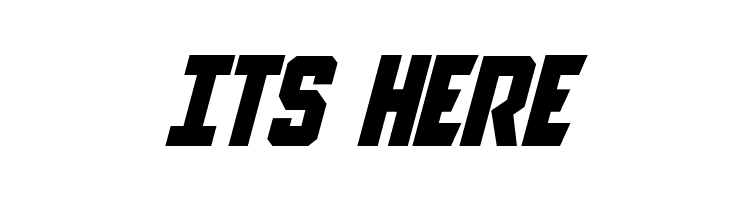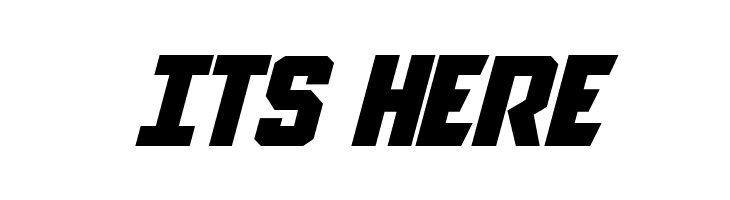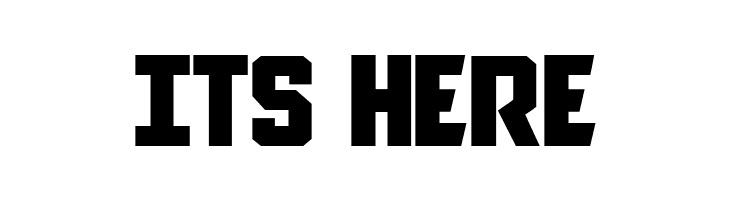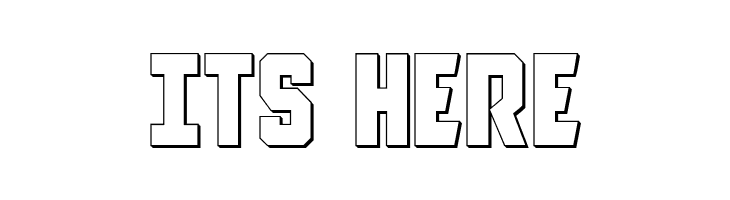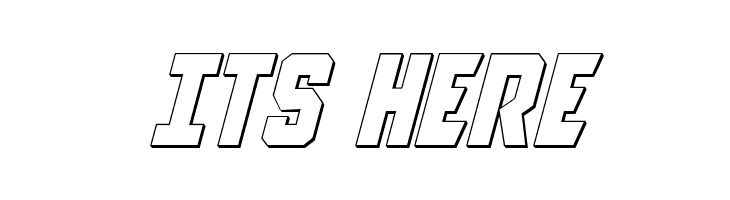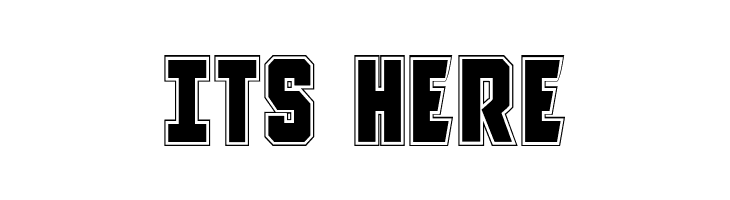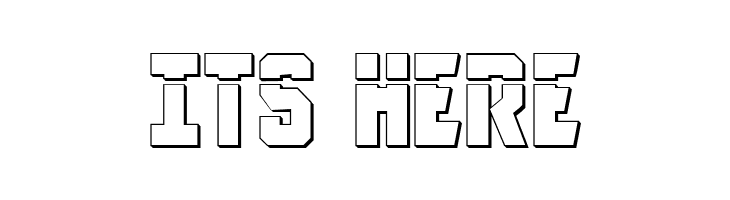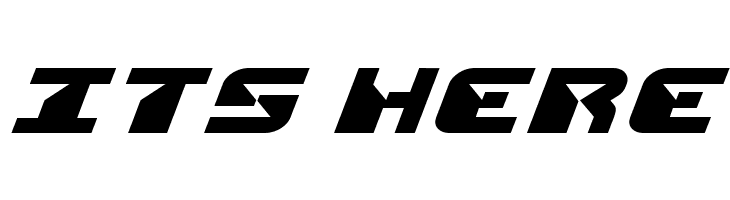
Chocolate Donuts Font
- Font: Chocolate Donuts
A bold, italic font with a dynamic and angular design, perfect for impactful visuals.
A bold, italic, and dynamic font with sharp angles and a modern style.
A bold, geometric font with sharp edges and an expanded width.
A bold, 3D outlined font with a geometric and angular style.
A bold, 3D italic font with a futuristic and dynamic style.
A bold, outlined font with a modern, geometric style.
A bold, 3D geometric font with a futuristic and industrial style.
A bold, italic, and expanded font with a futuristic and angular design.